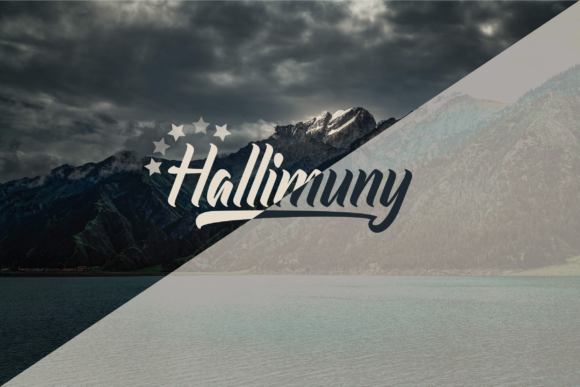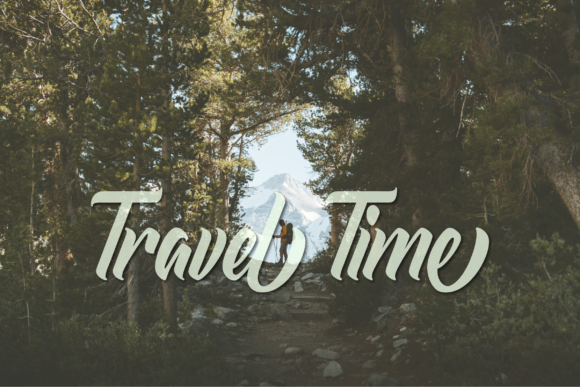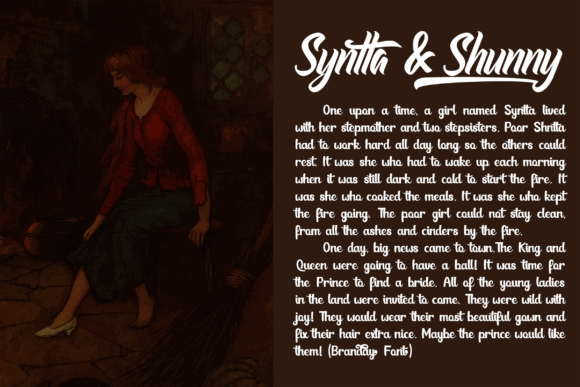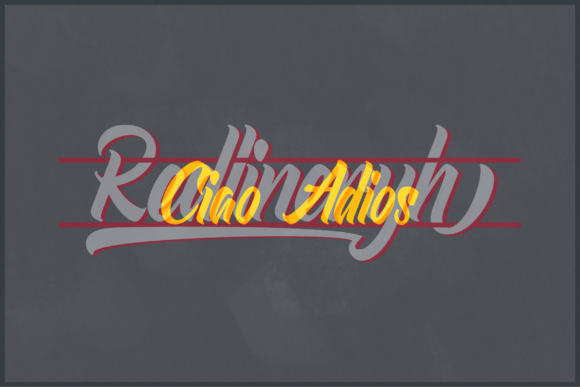
Introduction to Redlineryh Font
As a designer, have you ever found yourself stuck in a creative rut, desperately searching for the perfect font to elevate your project? It’s a moment we’ve all been there – staring at a blank page, pouring over font collections, and willing something, anything, to spark that creative fire. But what if you stumbled upon a font that not only captured your attention but also reflected the authenticity and boldness you’ve been searching for?
Enter Redlineryh Font, a game-changing script that’s poised to revolutionize your design workflow. This high-quality font is a treasure trove for designers seeking a design resource that’s both versatile and visually striking. With its transparent background and free download option, Redlineryh Font is an absolute must-have for any creative project.
Key Features of Redlineryh Font
- Features a unique, modern design with transparent background
- Includes a wide range of characters, including uppercase and lowercase letters, numbers, and punctuation marks
- Perfect for designers, artists, and writers looking for a modern and versatile font for their creative project
Honest Review: Redlineryh Font
I recently stumbled upon the Redlineryh Font, and I must say, it’s been a game-changer for my creative project. As a designer, I’m always on the lookout for high-quality design resources that can elevate my work.
Here’s what works well about the Redlineryh Font: ✨
- The font is highly customizable, allowing me to experiment with different styles and effects.
- It’s perfect for creating content with a transparent background, which adds an extra layer of sophistication to my designs.
- The font can be quite bold, so it may not be suitable for all types of designs.
- Some users may find the font’s aesthetic too aggressive or overpowering.
Overall, I’m really impressed with the Redlineryh Font. It’s a fantastic addition to any designer’s toolkit, and I highly recommend it for any creative project that requires a high-quality, attention-grabbing font.
The Redlineryh Font is ideal for a variety of creative projects, including graphic design, digital art, and even branding materials. Its unique design and high quality make it a valuable asset for designers and artists alike.
Alternatives to Redlineryh Font
Fontin is a high-quality, elegant font ideal for creative projects that require a sophisticated touch. It’s available for free download and offers a transparent background, making it perfect for designs that need a clean and minimalist look. When to use: Logos, business cards, and other design elements where a subtle yet refined font is needed. Compared to Redlineryh Font: Fontin has a more delicate and refined feel, making it suitable for projects where a bold font may overpower the design.
Montserrat is a popular design resource known for its versatility and clean lines. It’s a great option for creative projects that require a modern and sleek look. When to use: Brochures, magazines, and other publications where a clear and easy-to-read font is necessary. Compared to Redlineryh Font: Montserrat has a more geometric and structured feel, making it ideal for projects where a bold font may not be the primary focus.
Lato is a high-quality font that offers a unique blend of modern and traditional elements. It’s perfect for creative projects that require a touch of sophistication and elegance. When to use: Websites, apps, and other digital products where a clear and readable font is necessary. Compared to Redlineryh Font: Lato has a more balanced and refined feel, making it suitable for projects where a bold font may not be the primary focus.
Does the Redlineryh Font come with a transparent background?
Yes, the Redlineryh Font comes with a transparent background, making it easy to use in various design scenarios. This feature allows you to layer the font over images or other design elements without any issues.